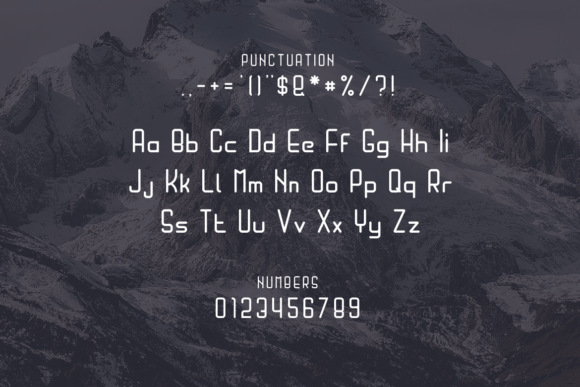
The Designer’s Dream Font: High Asce
Have you ever been in the middle of a design project, and suddenly, you’re stuck on finding the perfect font? I recall a recent experience where I was working on a luxury fashion brand’s logo design, and I just couldn’t seem to find a font that exuded the right amount of elegance and sophistication. That’s when I stumbled upon High Asce, a modern sans serif font that literally took my designs to new heights.
What Makes High Asce Special?
High Asce is defined by its elongated ascenders and sleek, minimalist structure, which brings a sense of air, elegance, and vertical sophistication to your designs. Its tall letterforms create a distinct visual rhythm, making it perfect for fashion branding, editorial headlines, luxury packaging, and minimalist logo designs.
What I Love About High Asce ✨
• ✅ Elegant and sophisticated design
• ✅ Perfect for fashion branding and luxury packaging
• ✅ Highly legible, even at small font sizes
• ✅ Extensive OpenType features, including stylistic alternates and glyphs
• ⚠️ Limited use for body text due to its tall ascenders
• ⚠️ May not be suitable for very casual or playful designs
Q: What is High Asce?
A: High Asce is a modern sans serif font characterized by its elongated ascenders and sleek, minimalist structure.
Q: What is High Asce best used for?
A: High Asce is perfect for fashion branding, editorial headlines, luxury packaging, and minimalist logo designs.
Q: Can I use High Asce for body text?
A: While High Asce is highly legible, its tall ascenders make it less suitable for body text. It’s best used for headlines and titles.
Q: Does High Asce support OpenType features?
A: Yes, High Asce supports extensive OpenType features, including stylistic alternates and glyphs, which can add more personality to your designs.